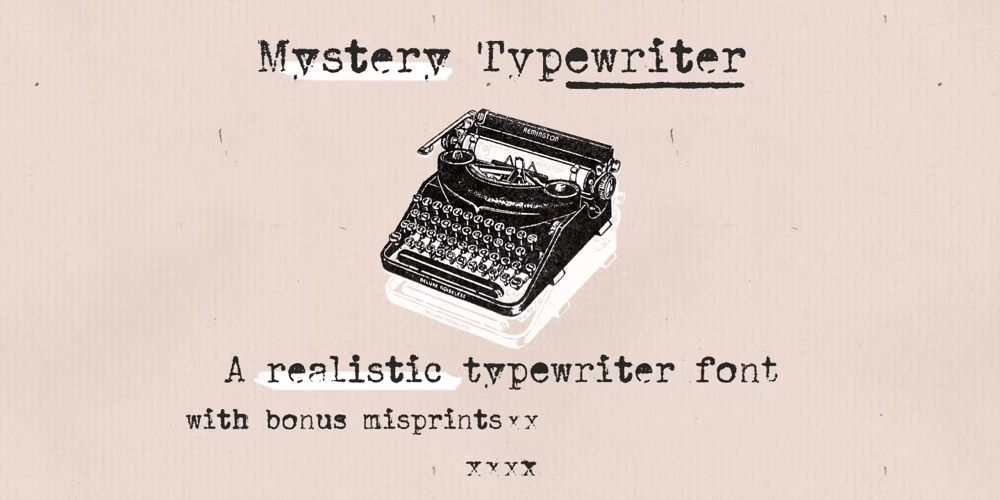
Mystery Typewriter Font Family was designed by Ana Parracho and published by Ana’s Fonts. Mystery Typewriter contains 2 styles and family package options. Mystery typewriter is a realistic typewriter font with bonus misprints.What you’ll get: Font with up to 3 alternatives for each letter, number and symbol, accessible through contextual alternates An extra set of 26 misprints to turn up the grunge volume in your designs This typewriter font is perfect for adding an authentic feel to your retro and vintage designs.